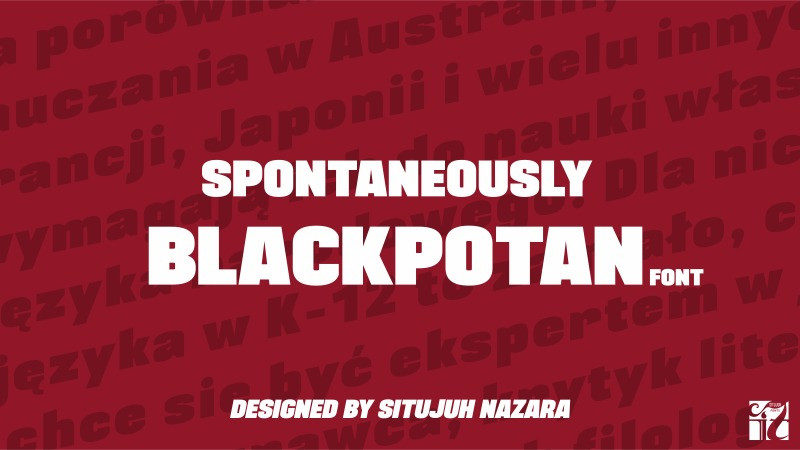
Blackplotan Font
Blackplotan Font is a bold headline typeface, designed to be an alternative to overused headline typefaces such as Impact. It can understand all commands and do whatever is said. It is very lively and fun in his daily life, but also monotonous.